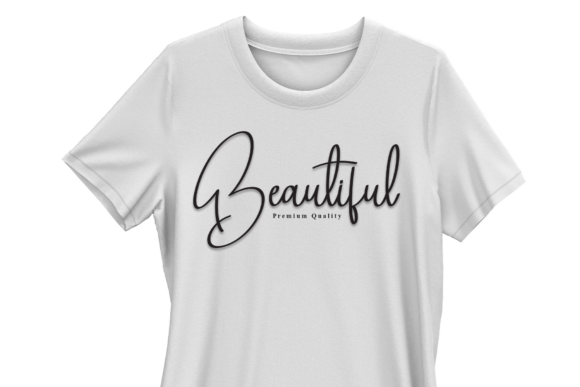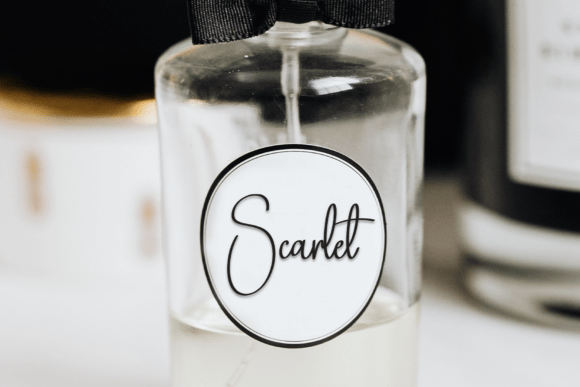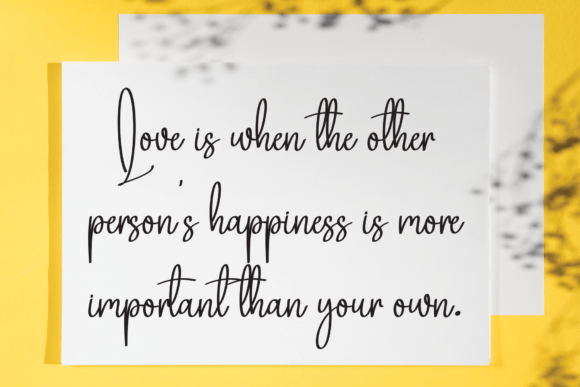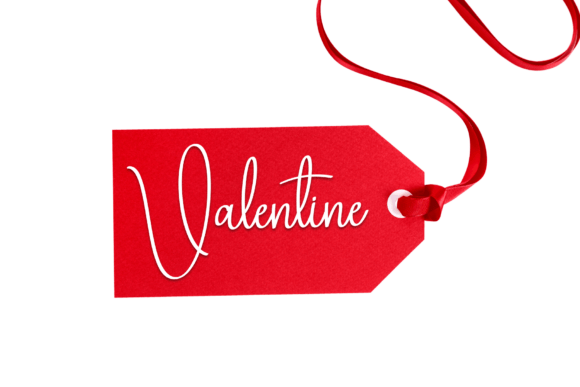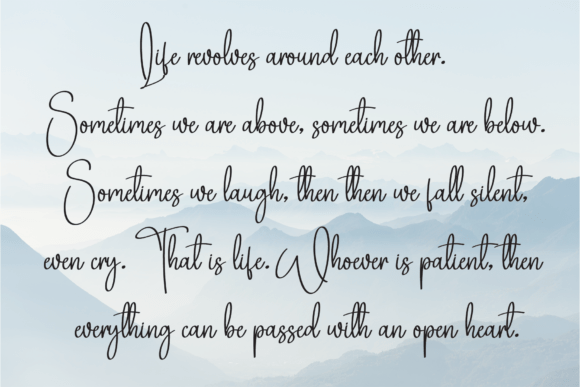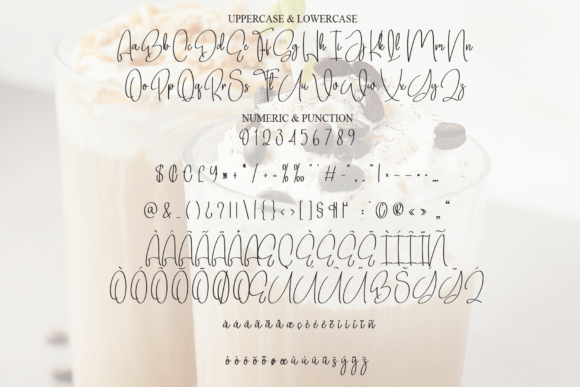
The Elegance of Coffelatte Font: A Designer’s Delight
Elegant, flowing, and full of charm — Coffelatte Font brings a touch of sophistication to any design. Perfect for weddings, branding, social media, and invitations, it features smooth curves and graceful swashes that elevate your text with a handwritten, romantic feel. Whether you’re crafting a signature logo or heartfelt quote, this font adds a personal and stylish flair.
- ✨ Elegant and sophisticated design
- ✅ Smooth curves and flowing lines
- 💕 Perfect for romantic and whimsical designs
- 🎨 Highly versatile for various design projects
While Coffelatte Font is a stunning addition to any design, there are a few things to keep in mind:
- ⚠️ May not be suitable for very long texts or body content
- 🤔 Some characters may require manual kerning for optimal spacing
- Experiment with OpenType features, such as swashes and stylistic alternates, to add a personal touch.
The Backstory Behind Coffelatte Font
While the origins of Coffelatte Font may be shrouded in mystery, it’s clear that the designer was inspired by the romance and elegance of handwritten scripts. The font’s creator likely spent countless hours perfecting the curves, swashes, and details to create a truly unique and captivating design.
Q: What type of designs is Coffelatte Font best suited for?
A: Coffelatte Font is perfect for weddings, branding, social media, and invitations, as well as any design project that requires a touch of elegance and sophistication.
Q: Can I use Coffelatte Font for body text or long content?
A: While Coffelatte Font is stunning, it’s best suited for headings, titles, or short texts. For longer content, consider pairing it with a more readable font.